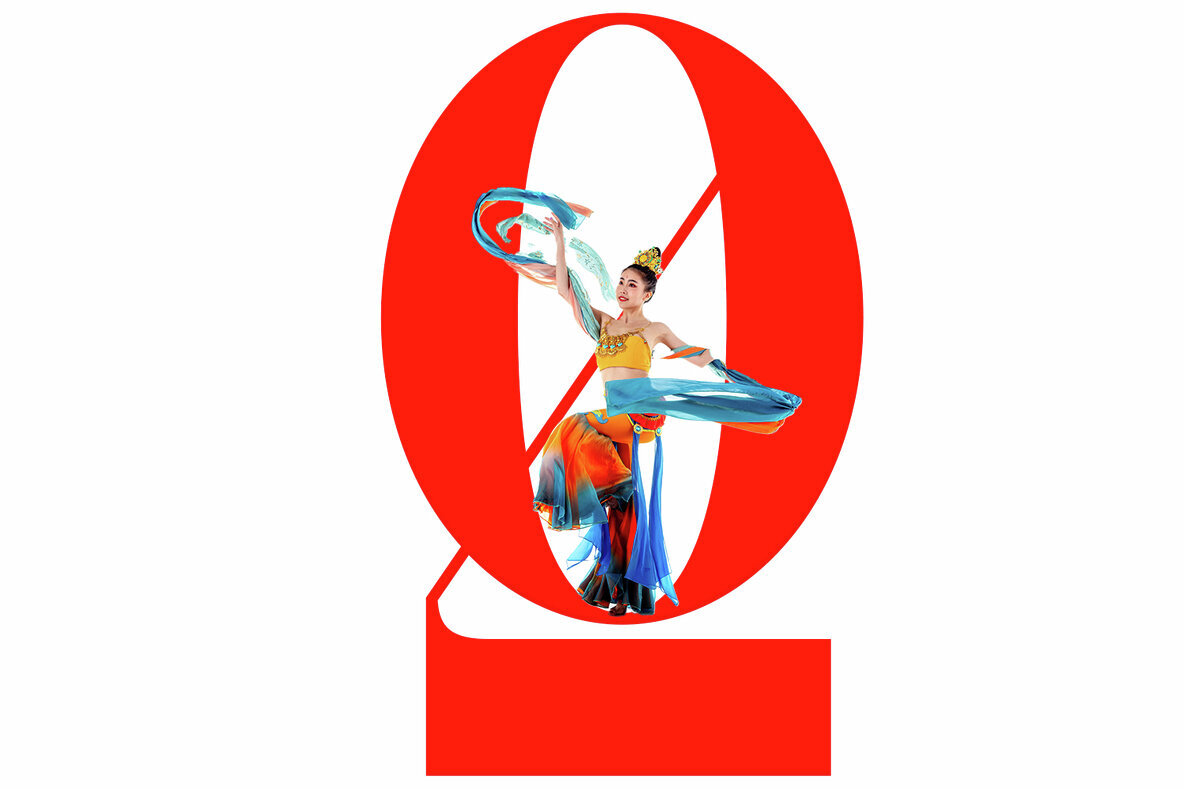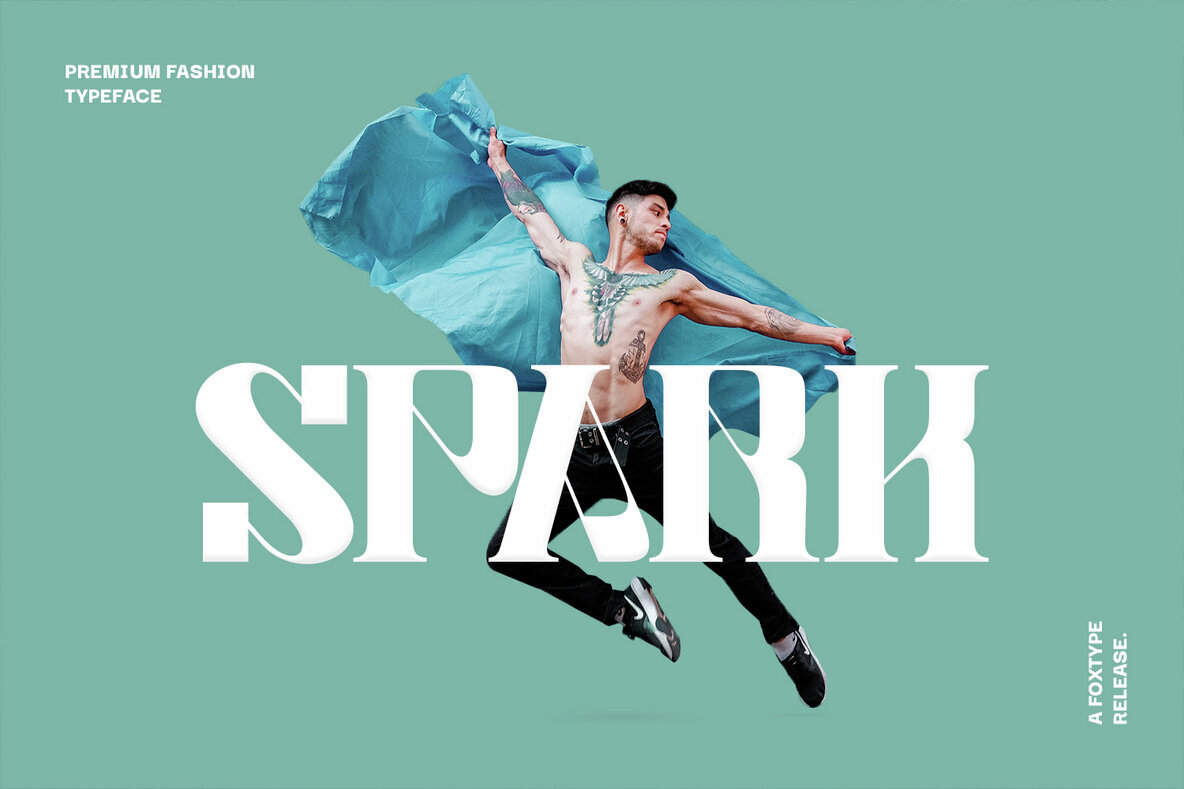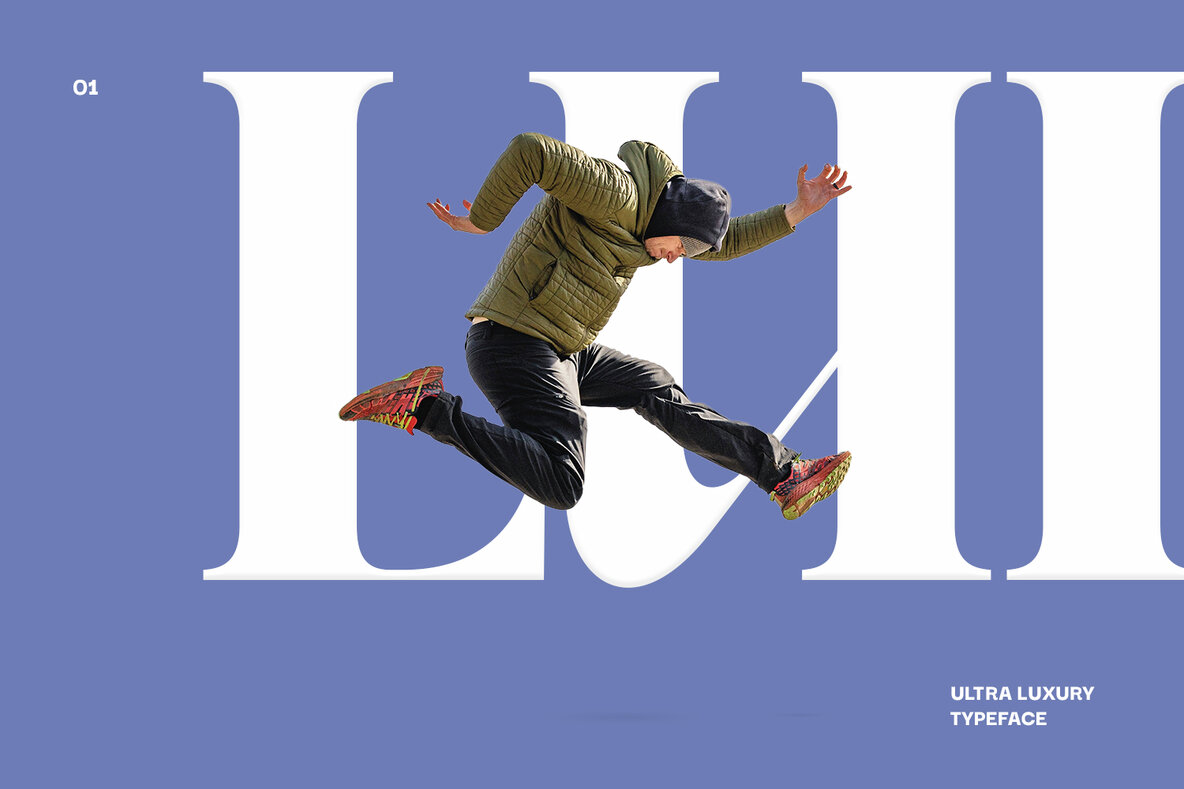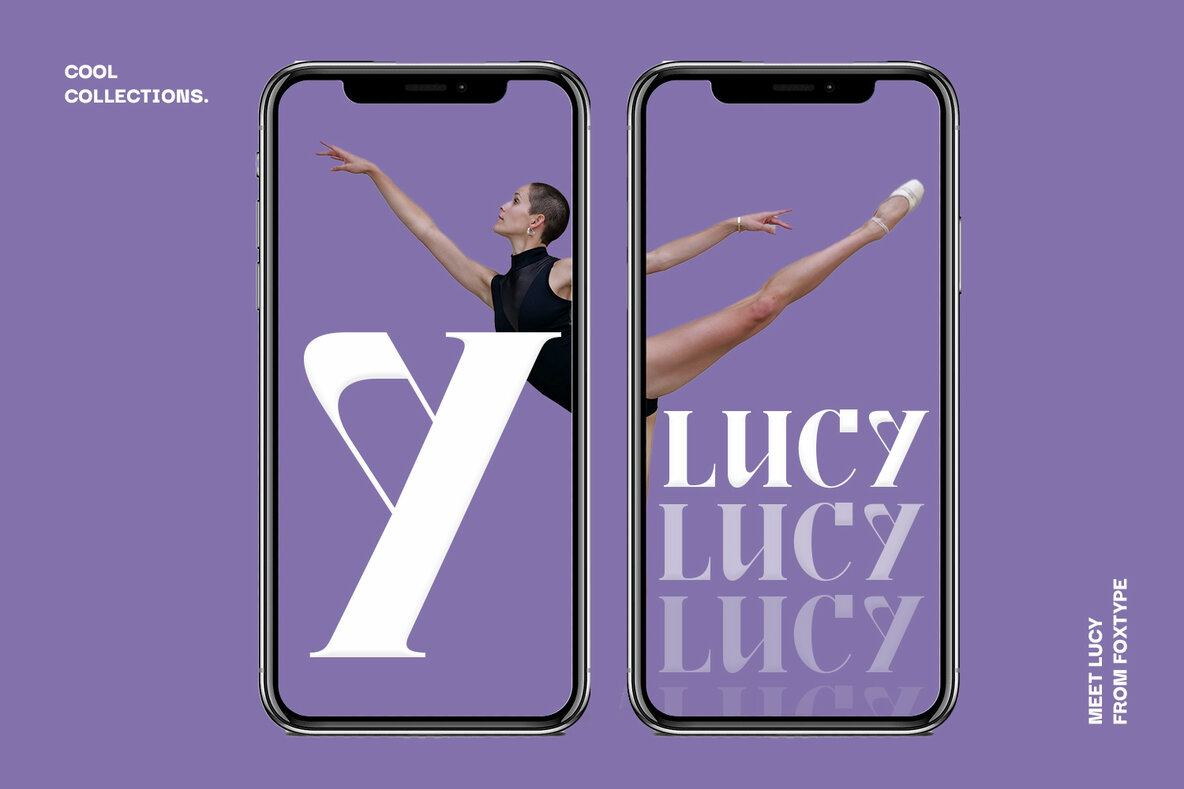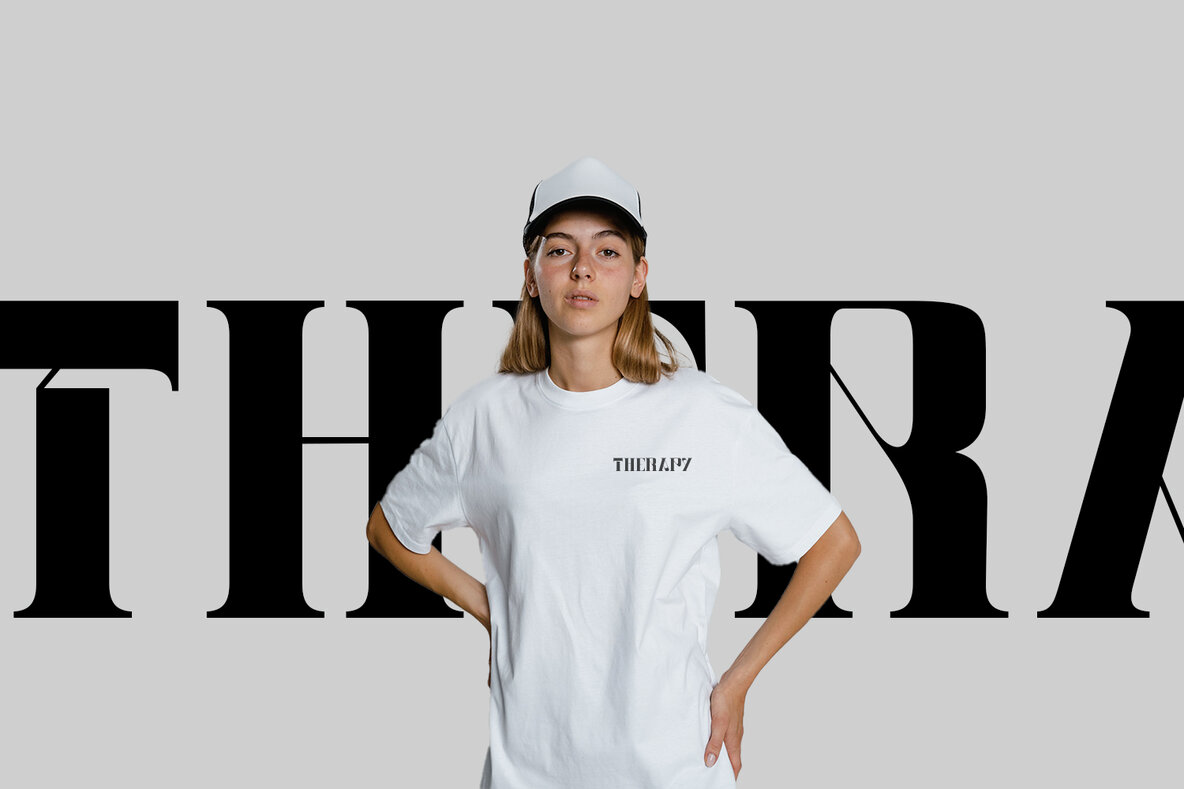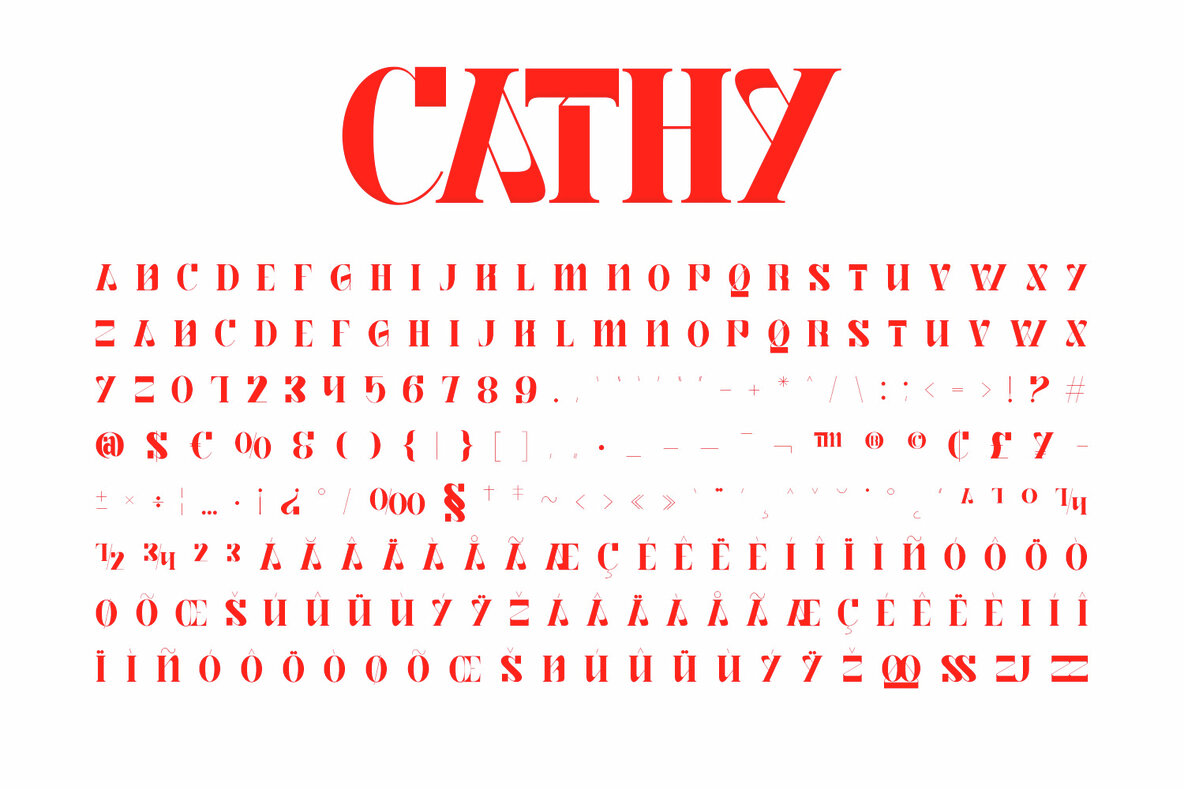
Cathy Font
Cathy Bold
Cathy Display by FoxType Co is a decorative typeface designed with a clear vision to captivate audiences and enhance your brand. Each detail of this typeface is meticulously crafted to ensure precision and mathematical coherence. Cathy is versatile, functioning efficiently as a corporate font and for various projects, including branding, logos, titles, headlines, posters, screens, display, digital ads, and more. We are committed to making Cathy Display a monumental long-term project, continually refining and updating the typeface to meet evolving design needs.Cathy Display: A New Generation Decorative Typeface
Ongoing Development